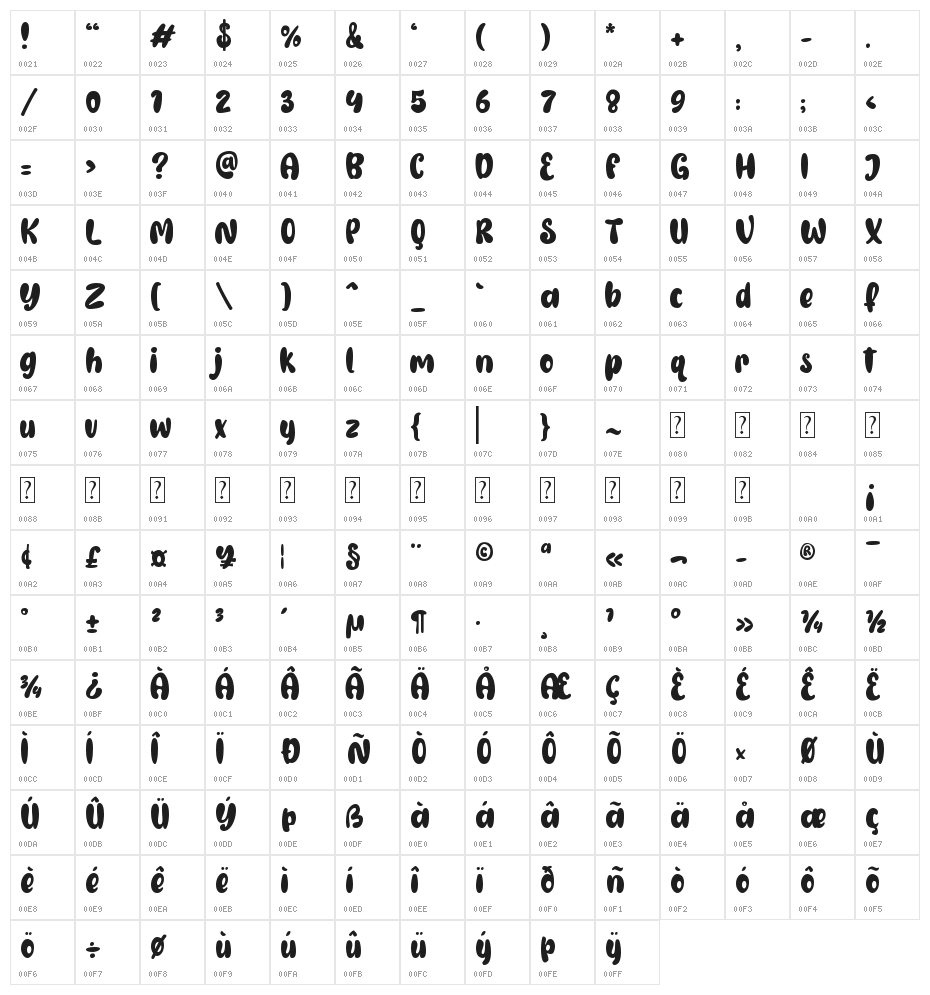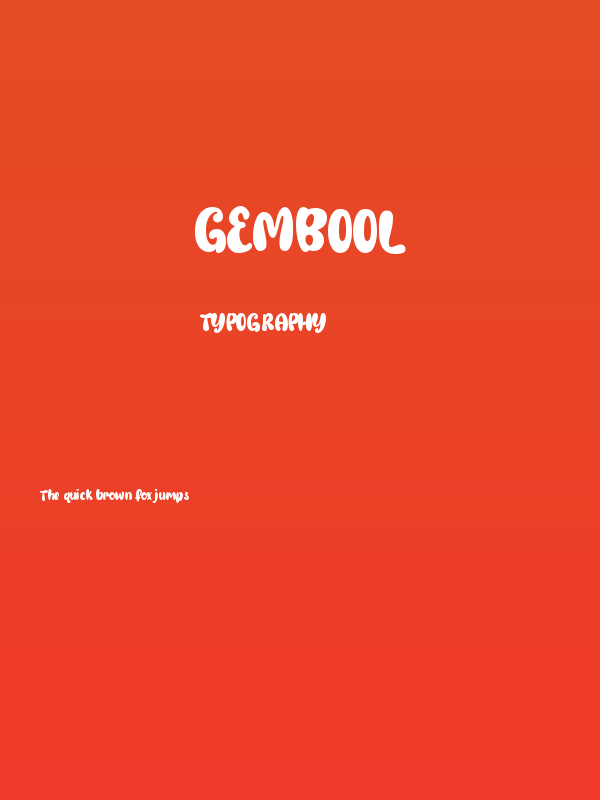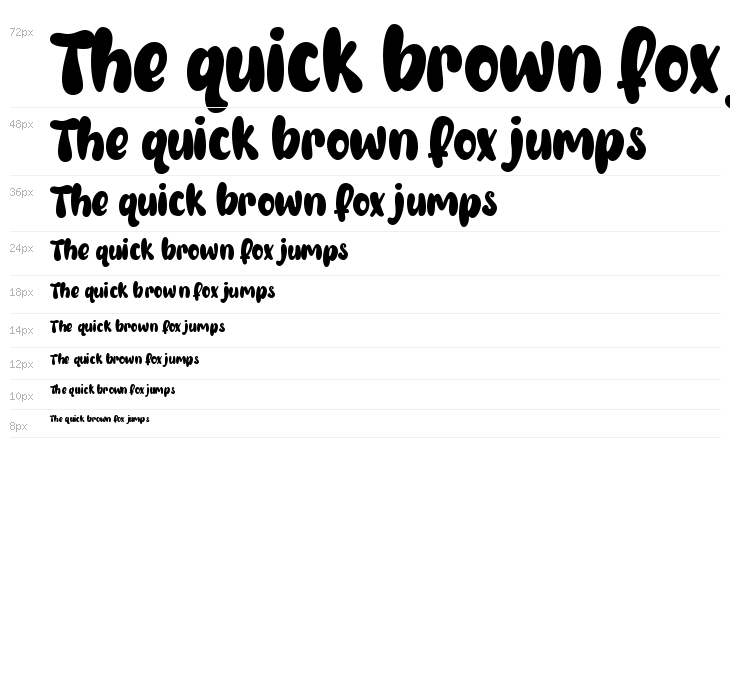
Gembool Font
Gembool Description
This font features a bold and playful style with rounded, bubbly characters that convey a sense of fun and creativity. The letters are thick and have a consistent weight throughout, giving them a strong presence on the page. The uppercase and lowercase letters maintain a cohesive look, with smooth curves and a slightly whimsical touch. Numbers and special characters follow the same design principles, ensuring uniformity across all elements. The font's overall appearance is friendly and approachable, making it suitable for projects that aim to capture attention and convey a lively, energetic vibe.
Overall StylePlayful, Fun
Use CaseHeadlines, Logos, Posters
Proposed ProjectsIdeal for children's books, playful branding, party invitations, and creative posters.